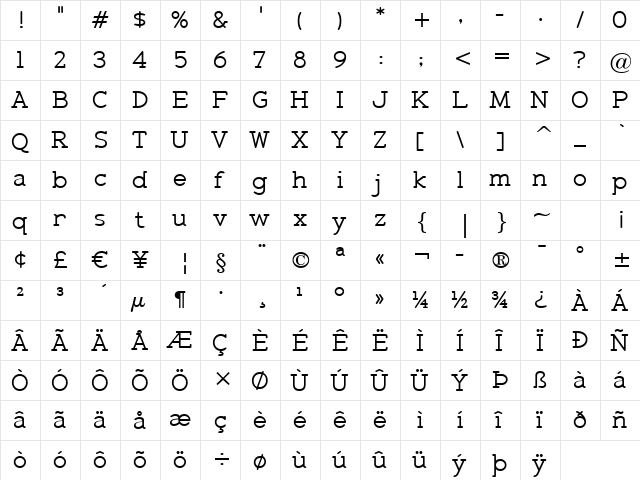
Zolano Serif BTN Regular
Design Context for Zolano Serif BTN Typeface
Zolano Serif BTN brings classic typographic sensibility to the table — its serifs and measured letterforms reflect centuries of print heritage.
Pro Tip: Use Zolano Serif BTN for editorial body copy and considered headline work. Pair with a neutral sans for UI elements or captions to create a classic hierarchy.